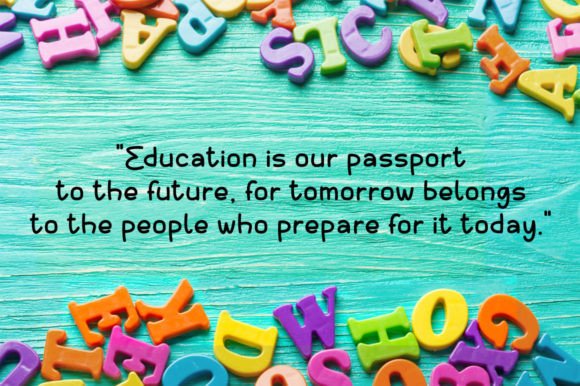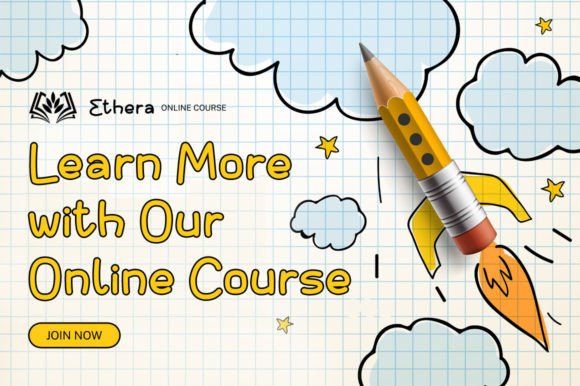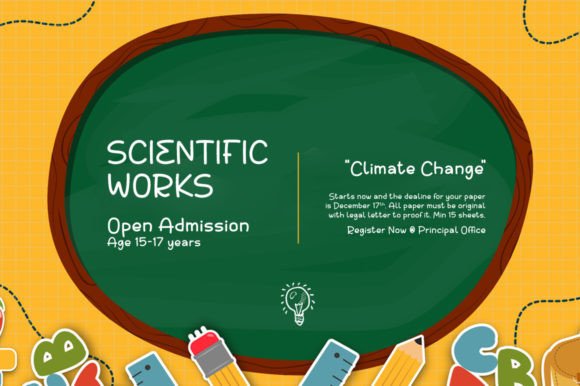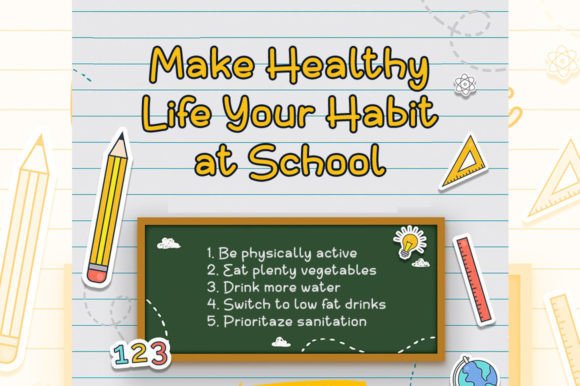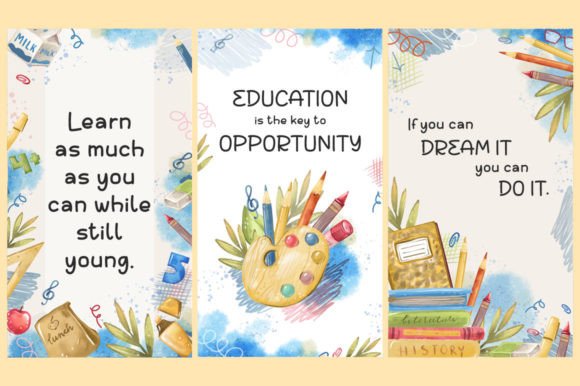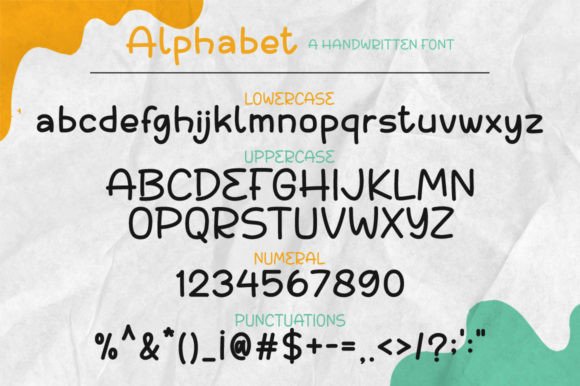
The Perfect Script for Love and Joy: A Closer Look at Alphabet Font
Have you ever found yourself rummaging through your stash of colorful pens and stationery, searching for the perfect way to express your love and gratitude? I know I have! There’s something special about putting pen to paper and creating something truly unique and personal. And that’s exactly what the Alphabet Font is all about – bringing a touch of romance and whimsy to your designs.
This adorable handwritten font is a designer’s dream come true, offering a dainty and joyful aesthetic that’s perfect for wedding invitations, cards, and any other project that needs a little extra love. Whether you’re a seasoned pro or a budding creative, the Alphabet Font is sure to add a touch of magic to your work.
So why is this font so valuable for designers? For starters, it offers a level of customization and personality that’s hard to find in more traditional fonts. With the Alphabet Font, you can add a personal touch to even the most mundane projects, making them truly special and memorable.
Key Features of Alphabet Font
- Font Family: Alphabet Font is a sans-serif font family designed for digital use, available in multiple weights and styles.
- Character Set: Alphabet Font supports a wide range of languages, including Latin, Cyrillic, and Greek scripts, with over 2000 glyphs in each weight.
- Size and Resolution: The font is optimized for on-screen use, with a recommended size range of 10-24 points and a resolution of 96 DPI or higher.
- Unique Characteristics: Alphabet Font features a clean and modern design, with a unique blend of geometric and organic elements. It also includes a range of decorative and stylistic alternates for added flair.
Alphabet Font Review
Overall, the Alphabet Font is a great choice for those looking for a clean and simple font. ✨ I appreciate how versatile it is, making it suitable for a wide range of applications, from body text to headings.
Here are some of its strengths:
- Legibility: The font is easy to read, even at smaller font sizes.
- Consistency: The font is highly consistent throughout, with each letter and symbol carefully designed to fit together seamlessly.
- Flexibility: Alphabet Font can be used in both digital and print media, making it a great option for designers working on multiple projects.
- Lack of personality: Some may find the font too plain or boring, lacking the unique character that comes with more ornate fonts.
- Limited expressive range: The font’s simplicity can make it difficult to convey complex emotions or ideas.
- Overuse: Due to its simplicity, Alphabet Font may be overused in certain contexts, which can lead to a sense of monotony.
- Children’s educational materials
- Handmade crafts and DIY projects
Overall, I think the Alphabet Font is a solid choice for designers who want a clean and simple font. While it may not be the most exciting option, it’s reliable and gets the job done. With some careful consideration of its limitations, I think it can be a valuable addition to any designer’s toolkit.
The Alphabet Font is ideal for creating:
For best results, use the Alphabet Font in bold or italic styles to add emphasis and visual interest to your design.